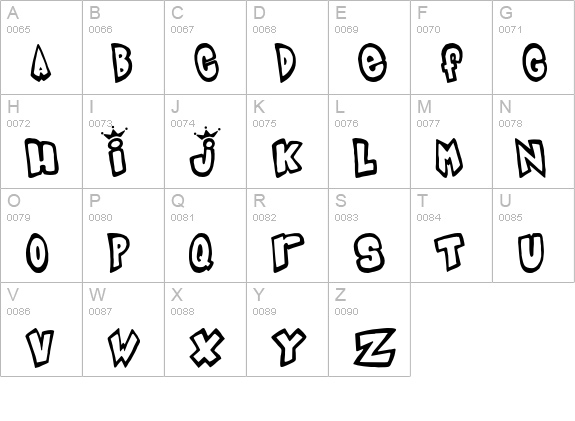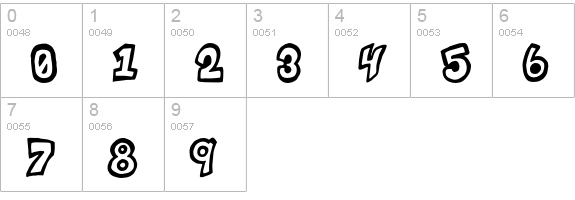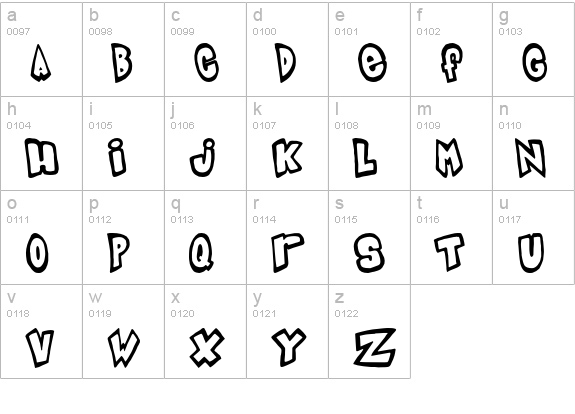
IndigoJoker font is a remarkable and captivating typeface that will make your designs stand out from the crowd. This font seamlessly blends elegance and playfulness, creating a perfect balance between sophistication and fun. With its unique and eye-catching shape, IndigoJoker font will bring a touch of whimsy to any project. What makes IndigoJoker font even more appealing is that it is freely available to download at FontsMarket.com. Yes, you read that right - this outstanding font can be yours without spending a dime! Whether you are a professional graphic designer or a creative enthusiast, this free font will be a valuable addition to your font library. IndigoJoker font is incredibly versatile and can be used for a wide range of design projects. From branding and logo design to posters, greeting cards, and social media graphics, this font will elevate your creations to new heights. Its bold and confident strokes make a bold statement, while the delicate details add a touch of refinement. The characters of IndigoJoker font are meticulously crafted, ensuring legibility and readability even at smaller sizes. The smooth curves and sharp angles create a harmonious flow that is pleasing to the eye. This font is designed to make an impact and leave a lasting impression on your audience. Whether you're working on a modern and edgy project or something more traditional and elegant, IndigoJoker font has got you covered. Its versatility allows it to adapt to any design style, making it a go-to choice for designers around the world. So why wait? Don't miss out on the opportunity to enhance your designs with IndigoJoker font. Head over to FontsMarket.com and download this incredible font for free. Let your creativity shine and make a bold statement with IndigoJoker font today!